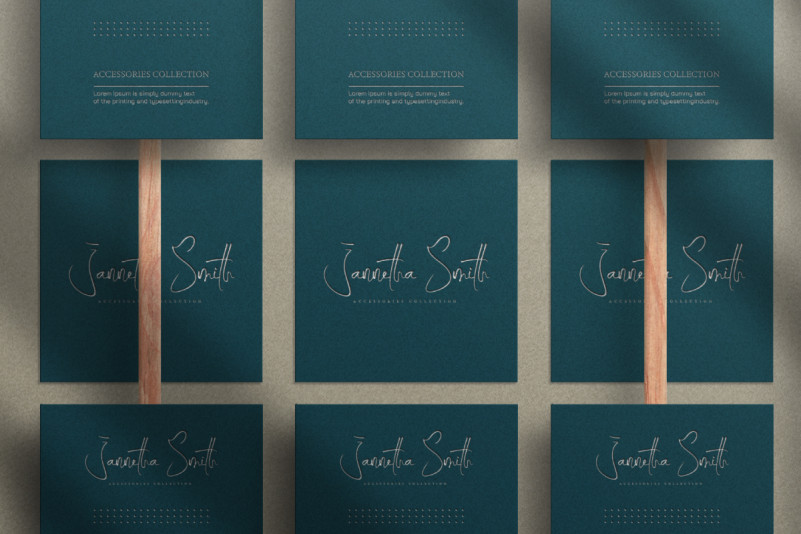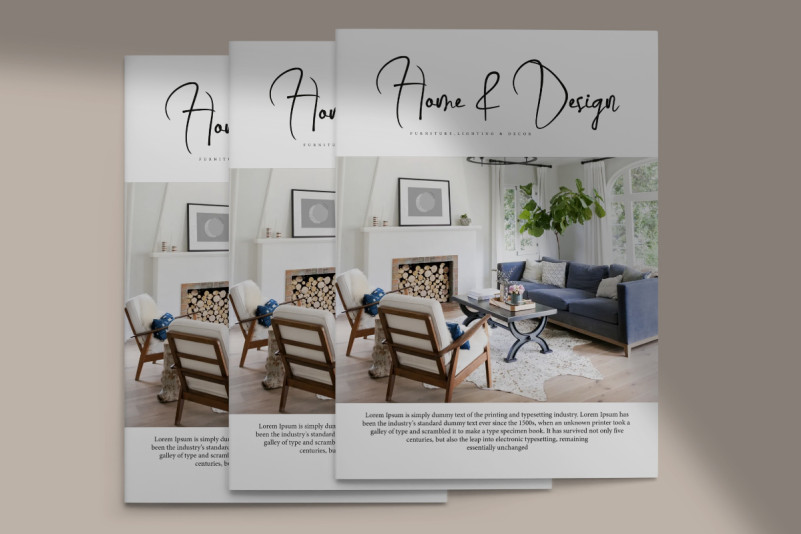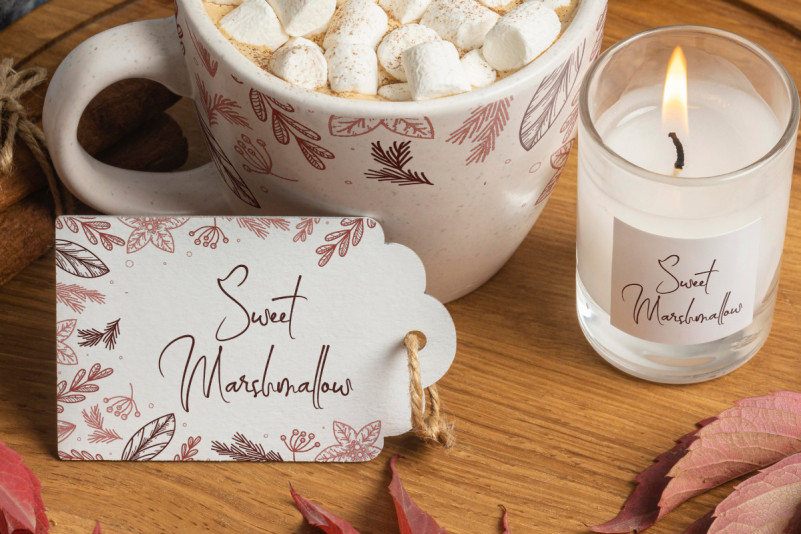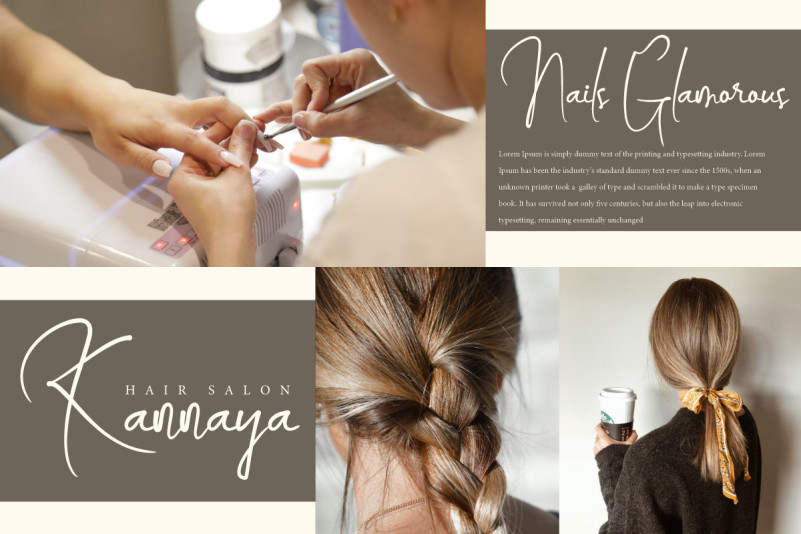
Fly Together Font
Fly Together Handwritten Font is a unique decorative handwriting font created by CalligraphyFonts.net. The font has a sleek and thin shapes, making it authentic, perfect for your creative projects such as : brand logo, brochure, business card, catalog, header, invitation, label, quote, stationery, website, and much more.